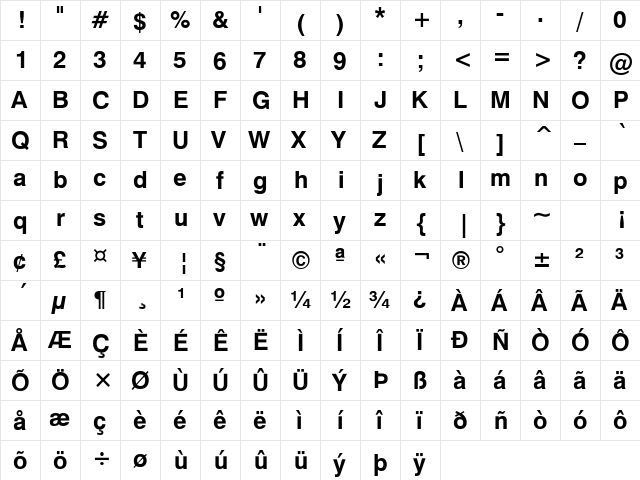
Halvett Bold
Design Context for Halvett Typeface
Halvett takes a measured approach to typography — its balanced proportions and neutral character make it a reliable workhorse for both digital and print work. Its bold stroke weight gives it real presence on the page.